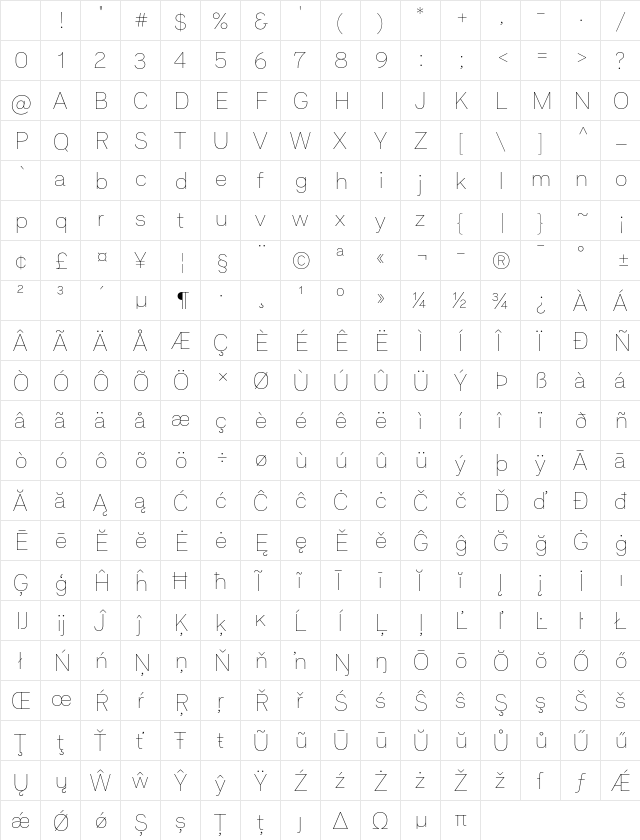
RT Dromo UltraLight is a composed and adaptable typeface that performs quietly and consistently across a wide range of design contexts. Its slender proportions lend an understated elegance to any composition.